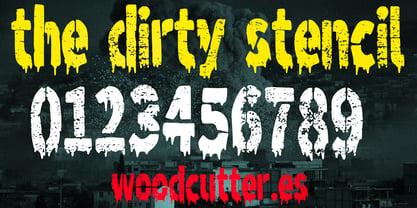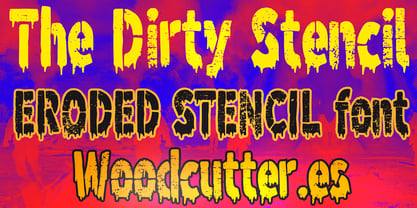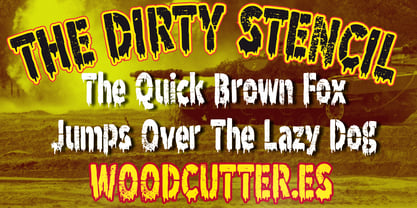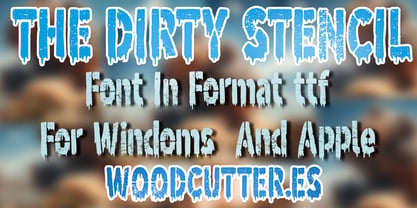
The Dirty Stencil
by Woodcutter
The The Dirty Stencil Font Family was designed by Jordi Manero and published by Woodcutter. The Dirty Stencil contains 1 styles. More about this family
"The Dirty Stencil" is an uppercase and lowercase font that combines the classic stencil style with a chaotic and worn-out touch. Its letters feature irregular edges, incomplete sections, and a dripping effect that mimics fresh paint running down. This design conveys a raw and rebellious vibe, ideal for urban, punk, or industrial-themed projects. The distressed texture and messy details make it a bold and expressive choice, perfect for posters, logos, or graphic designs seeking to convey strength, attitude, and authenticity in a daring visual context.
Designers: Jordi Manero
Foundry: Woodcutter